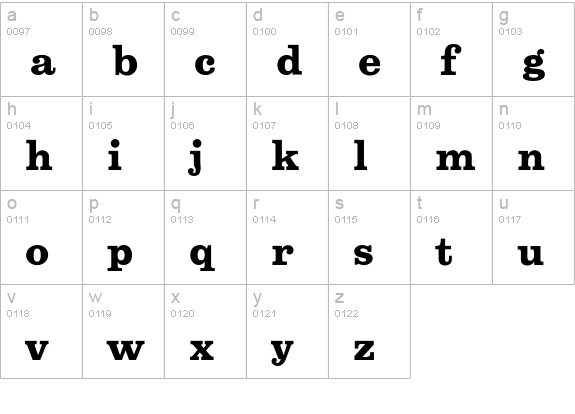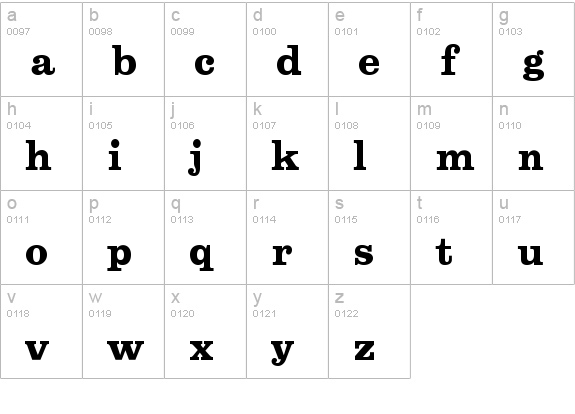
BelizioBold Font Details
Introducing BelizioBold font, a modern and stylish typeface that exudes confidence and sophistication. Its bold and prominent lettering makes it perfect for headlines, titles, and other attention-grabbing design projects. The strong and striking appearance of BelizioBold commands attention and leaves a lasting impression on viewers. This versatile font is suitable for a wide range of design applications, from branding and advertising to packaging and editorial design. Its clean lines and elegant curves make it easy to read while adding a touch of elegance to any project. The best part? BelizioBold is available for free download at FontsMarket.com. Now you can elevate your designs with this premium font without breaking the bank. Don't miss out on the opportunity to add BelizioBold to your font collection and take your designs to the next level.